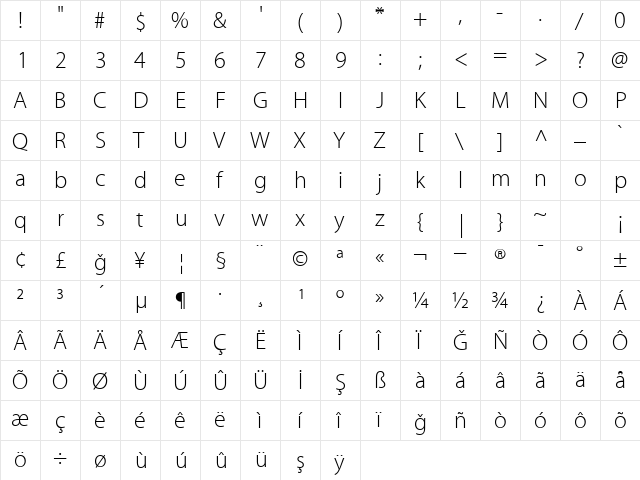
STVMyriad Light
Design Context for STVMyriad Typeface
STVMyriad takes a measured approach to typography — its balanced proportions and neutral character make it a reliable workhorse for both digital and print work. Its slender proportions lend an understated elegance to any composition.